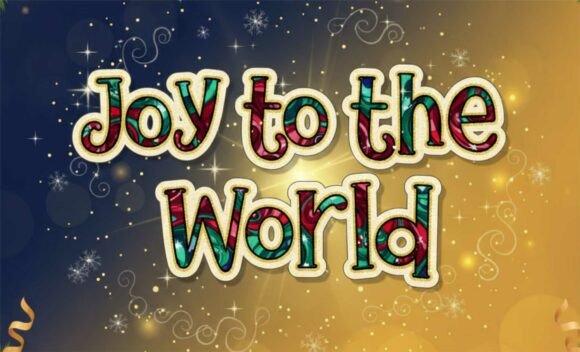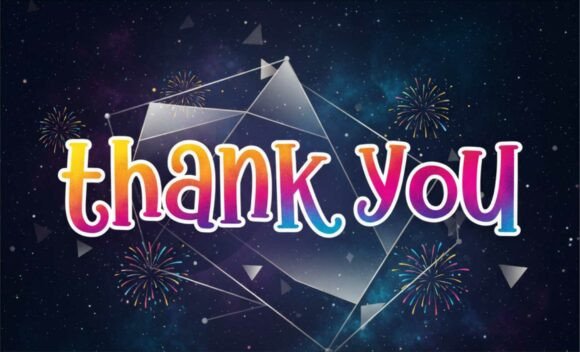
Introducing Christmas Monday: The Ultimate Festive Holiday Font
Are you looking for a font that captures the essence of Christmas and adds a touch of holiday magic to your designs? Look no further than Christmas Monday, a charming and joyful holiday-themed serif font that’s perfect for bringing warm festive vibes to all your creative projects.
A Festive Font with a Playful Twist
Christmas Monday is designed to evoke the feeling of a cozy winter’s day, with its playful curves and handwritten style that exudes a sense of cheer and friendliness. This font is ideal for anyone looking to add a personal touch to their holiday designs, whether it’s for Christmas cards, gift tags, invitations, quotes, posters, branding, or DIY crafts.
Christmas Monday is a versatile font that can be used for a variety of projects, including:
- Holiday greeting cards: Create beautiful and heartfelt Christmas cards that will make your loved ones feel special.
- Winter quotes: Add a touch of festive flair to your winter quotes and make them stand out on social media.
- Christmas labels: Create custom labels for your gifts, products, or packages that exude a sense of holiday cheer.
- Party invitations: Design festive and fun party invitations that will get your guests in the holiday spirit.
- Sublimation designs: Create stunning sublimation designs for mugs, t-shirts, and other products that will make perfect holiday gifts.
- Stickers: Design cute and festive stickers that can be used for gifts, decorations, or as a fun way to add a personal touch to your projects.
- Social media posts: Add a touch of holiday magic to your social media posts and make them stand out during the holiday season.
- Seasonal branding: Create a festive and cohesive brand identity for your business during the holiday season.
Easy to Use and Customize
Christmas Monday is a PUA-encoded font, which means that all glyphs, swashes, and alternate characters are easily accessible, making it simple to customize your creations. With this font, you can:
- Easily access a wide range of characters and glyphs to add a personal touch to your designs.
- Create unique and eye-catching designs with the font’s built-in swashes and alternates.
- Mix and match different characters to create a one-of-a-kind look for your projects.
Why Choose Christmas Monday?
So why choose Christmas Monday over other holiday fonts? Here are just a few reasons:
- Unique and festive design: Christmas Monday has a unique and festive design that’s sure to stand out in any project.
- Easy to use: The font is PUA-encoded, making it easy to access all glyphs and characters.
- Versatile: Christmas Monday can be used for a wide range of projects, from holiday cards to social media posts.
- High-quality: The font is designed to be high-quality and clear, making it perfect for both digital and print projects.
Make Your Christmas Designs Unforgettable
In conclusion, Christmas Monday is the perfect font for anyone looking to add a touch of holiday cheer to their designs. With its playful curves, cozy handwritten style, and PUA-encoded ease of use, this font is sure to become a go-to for designers and crafters alike. So why not give it a try and see how Christmas Monday can help make your holiday designs unforgettable?